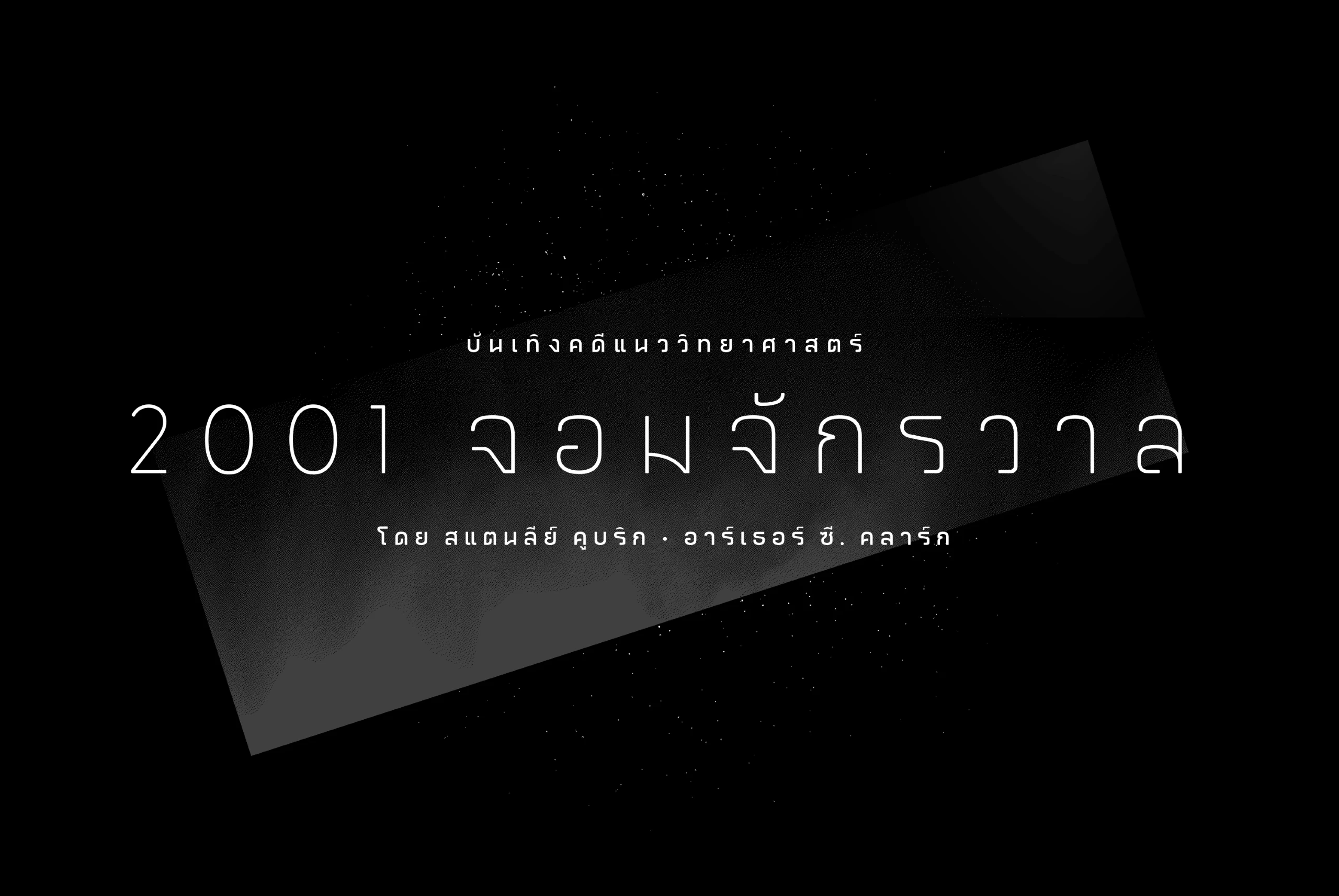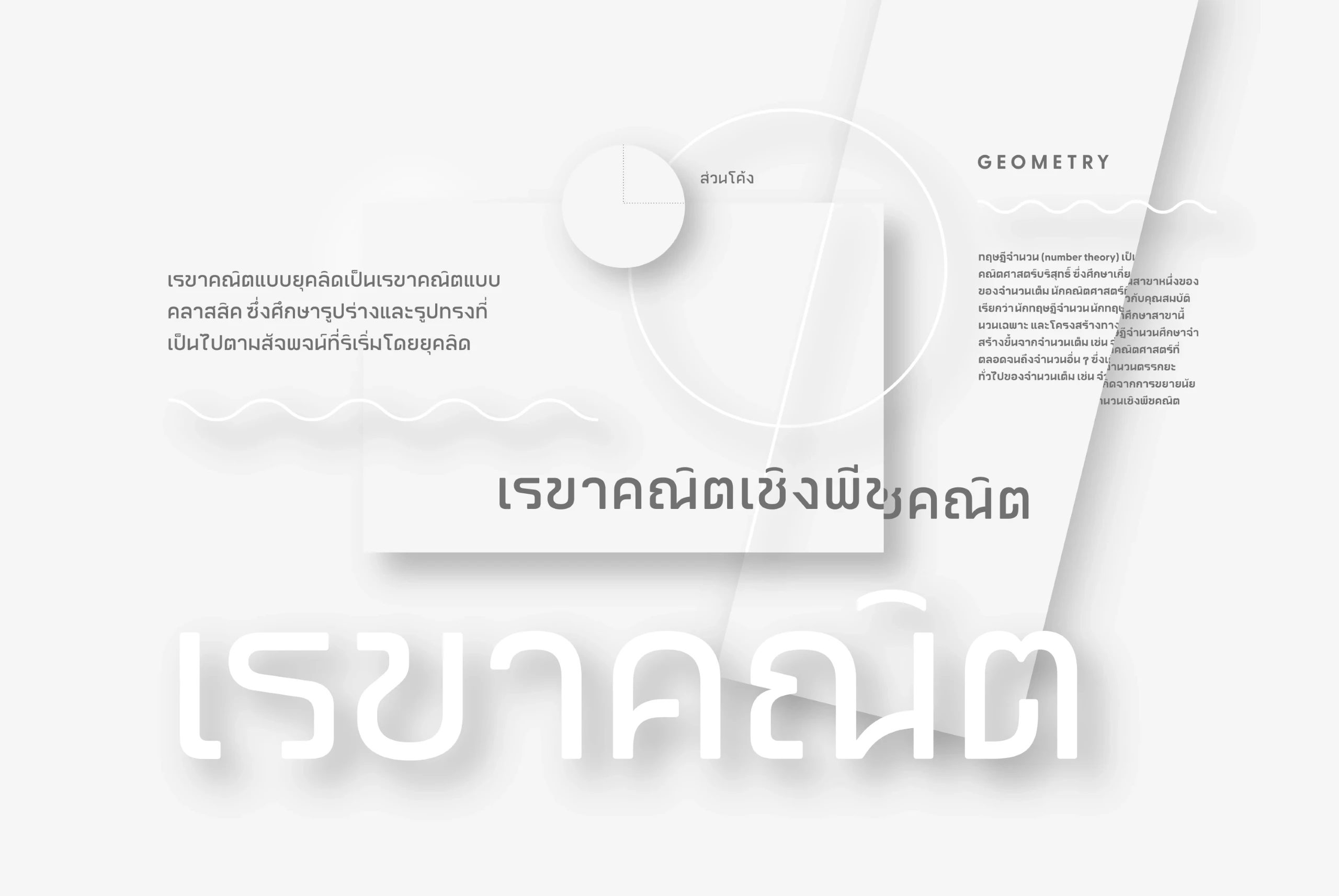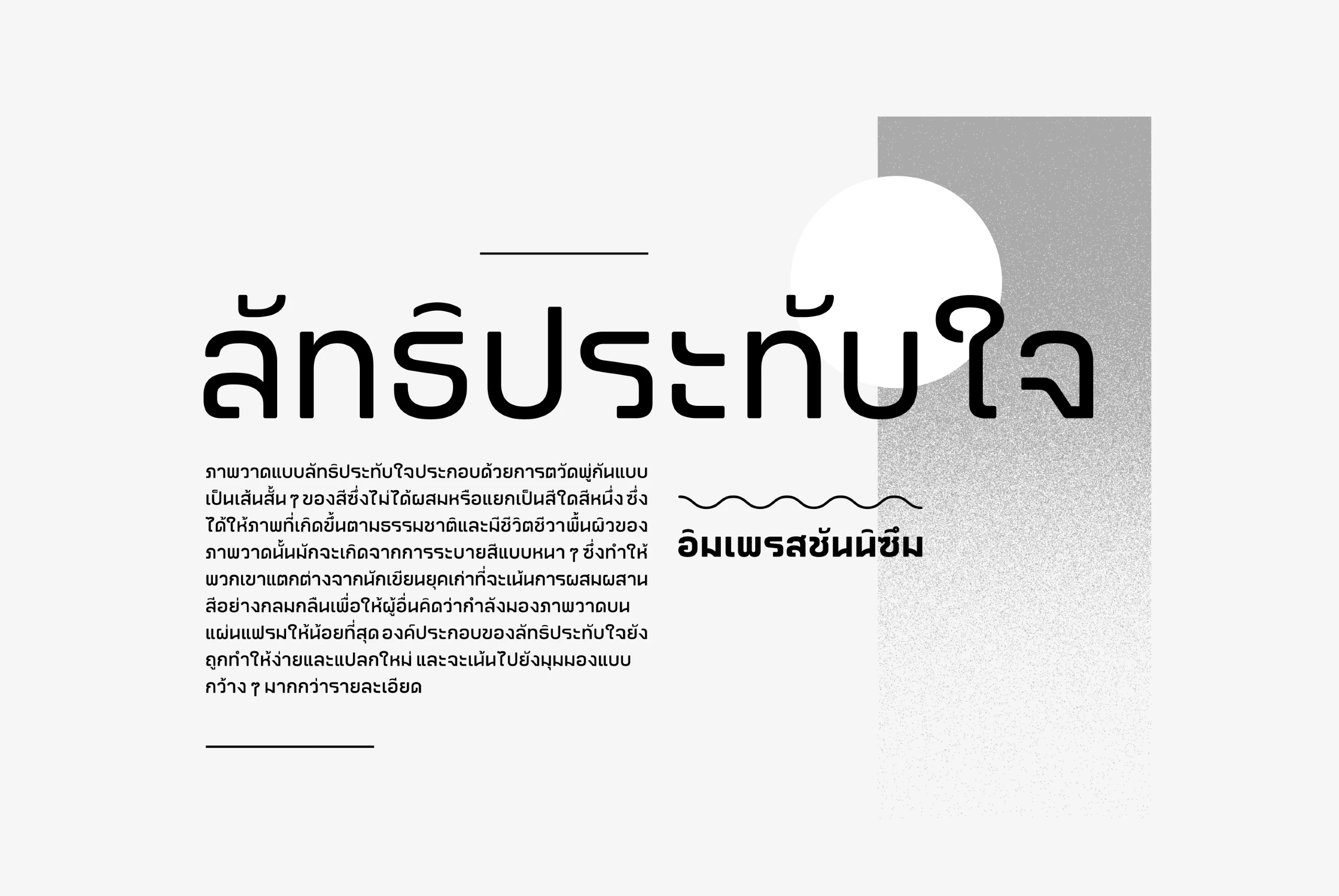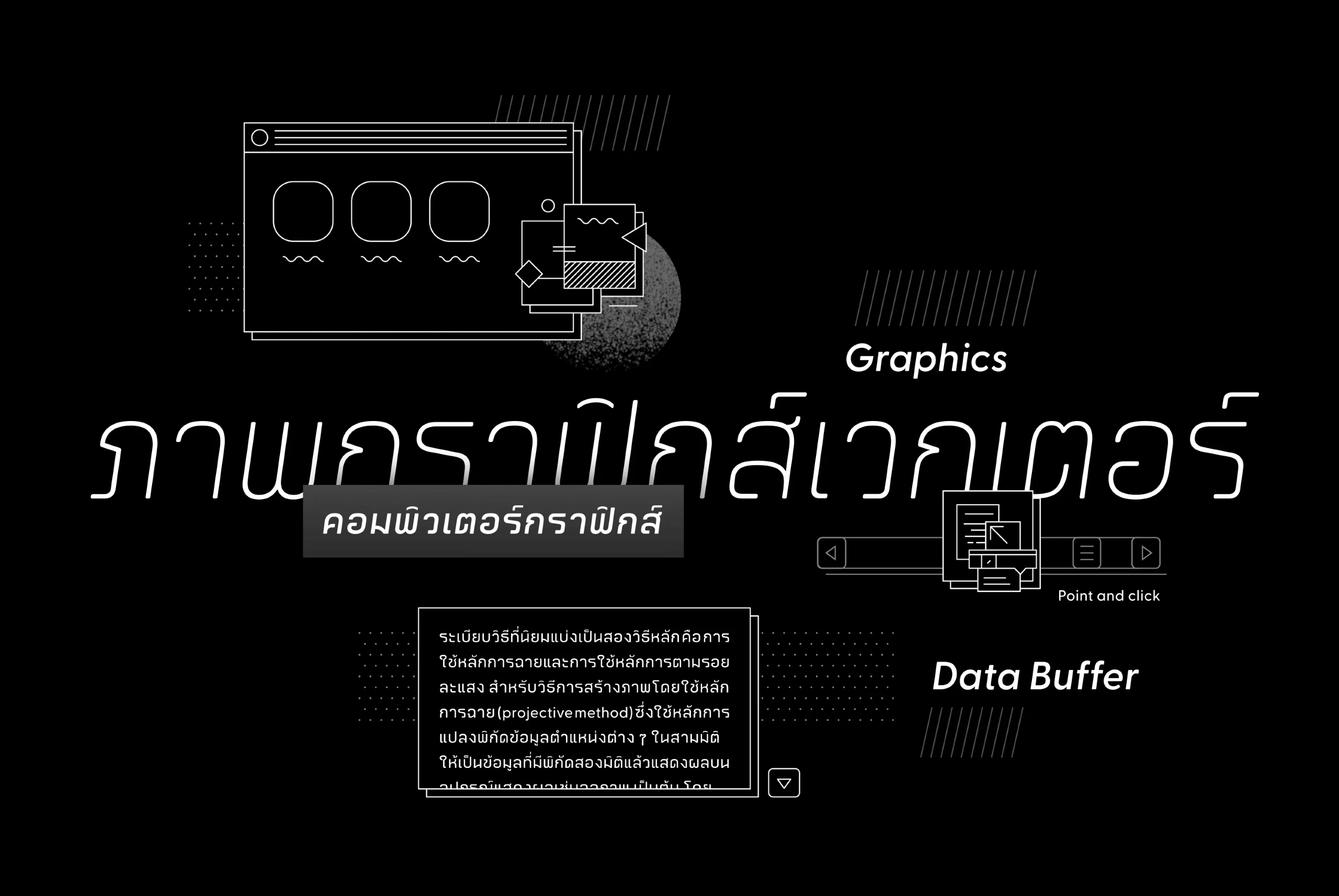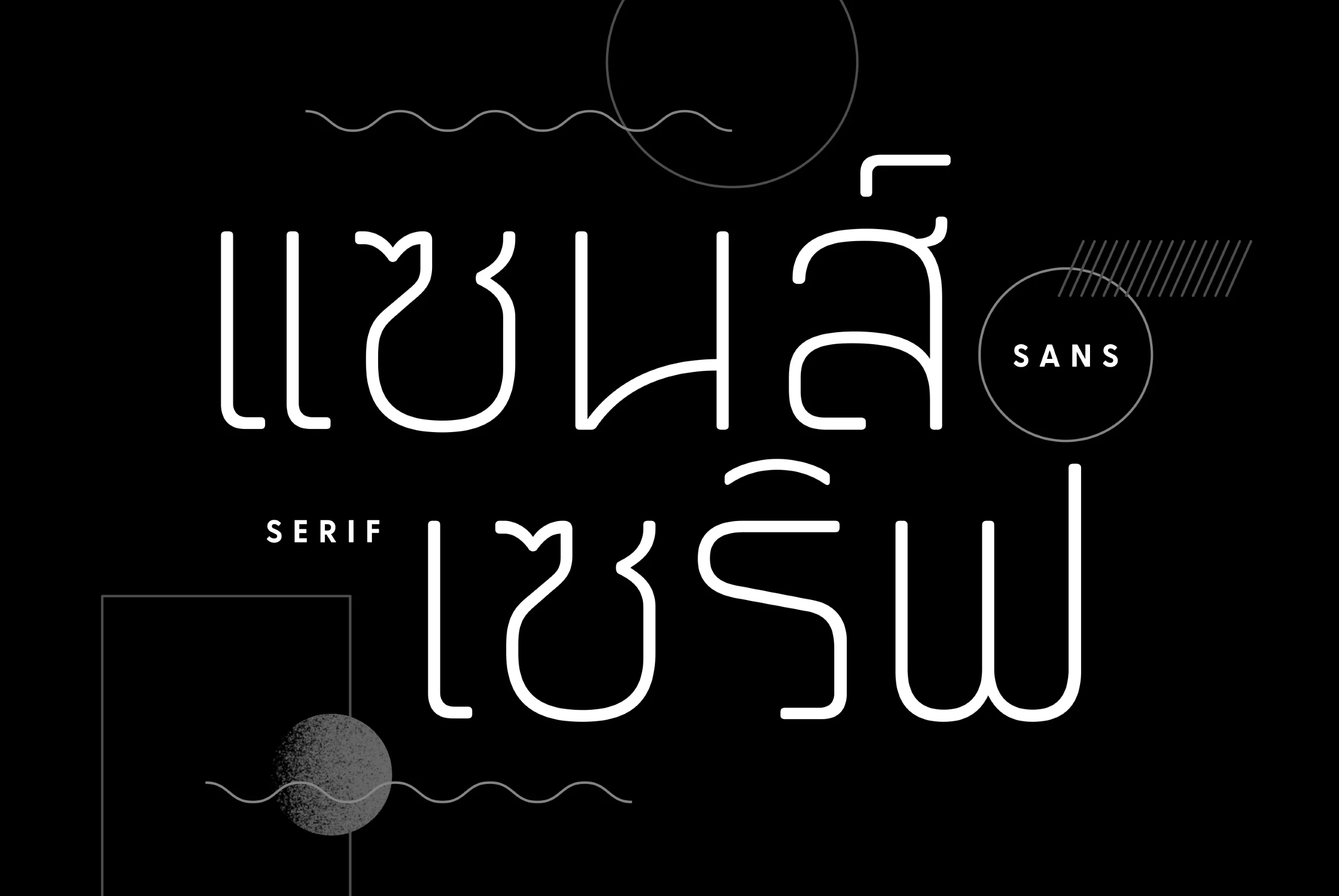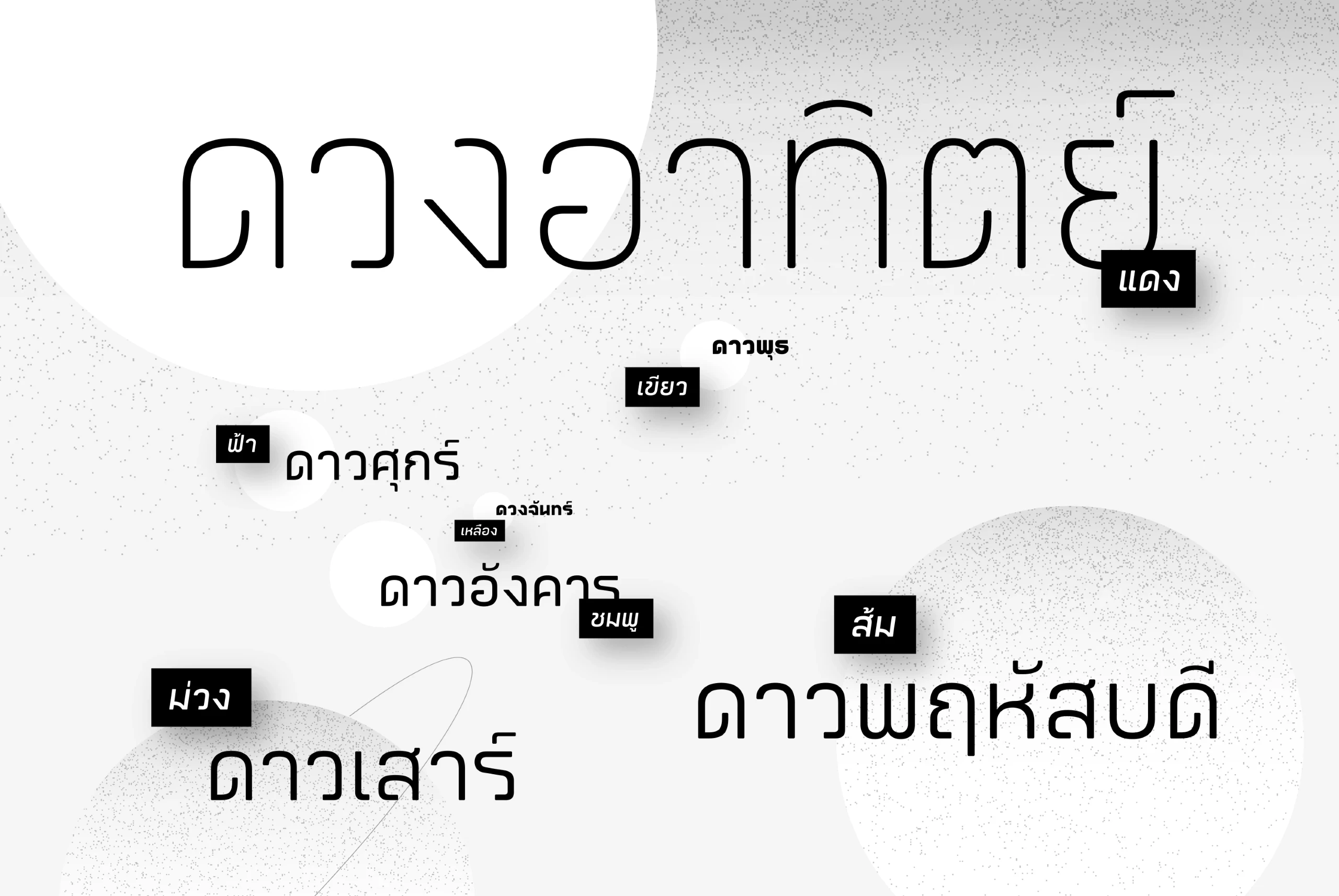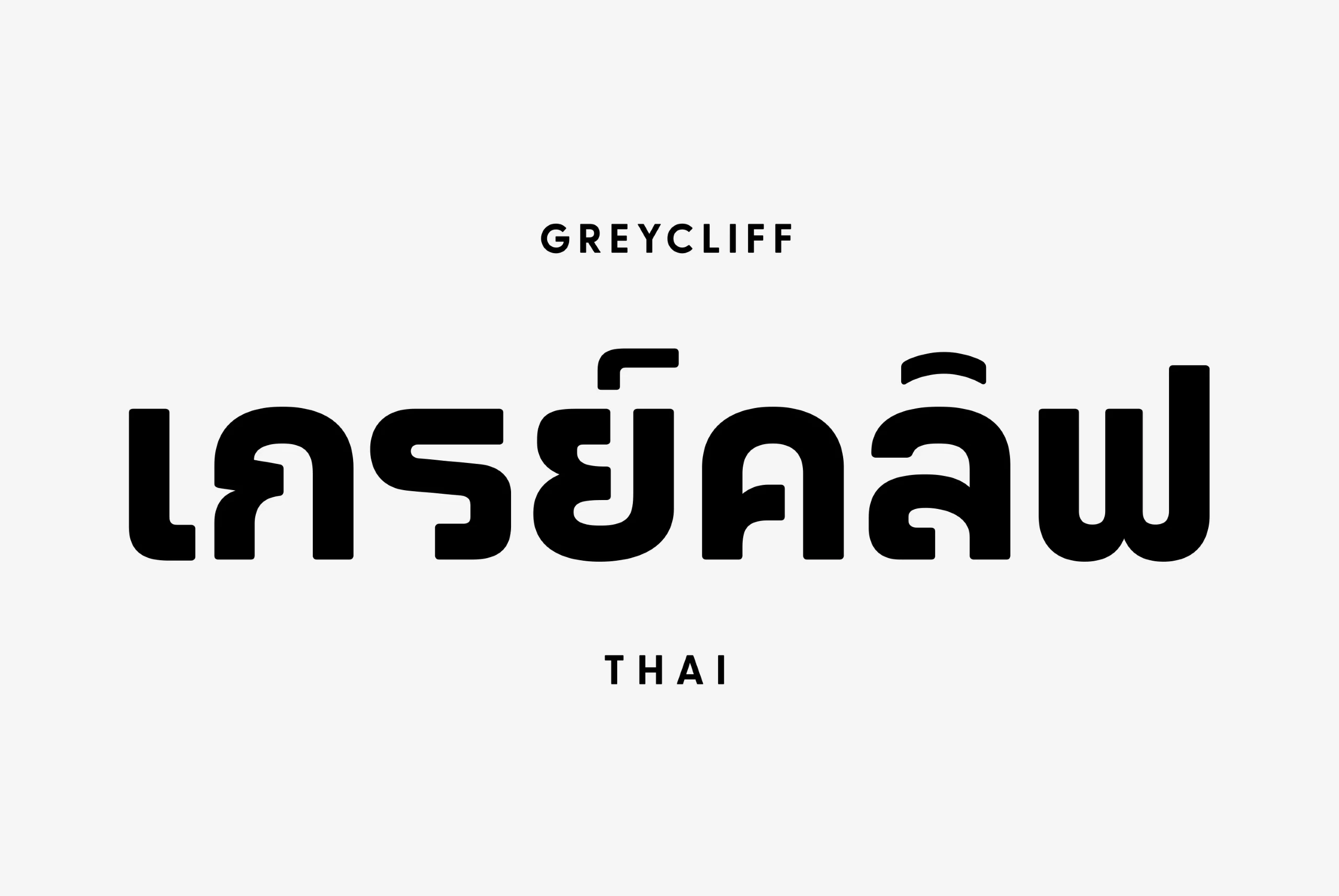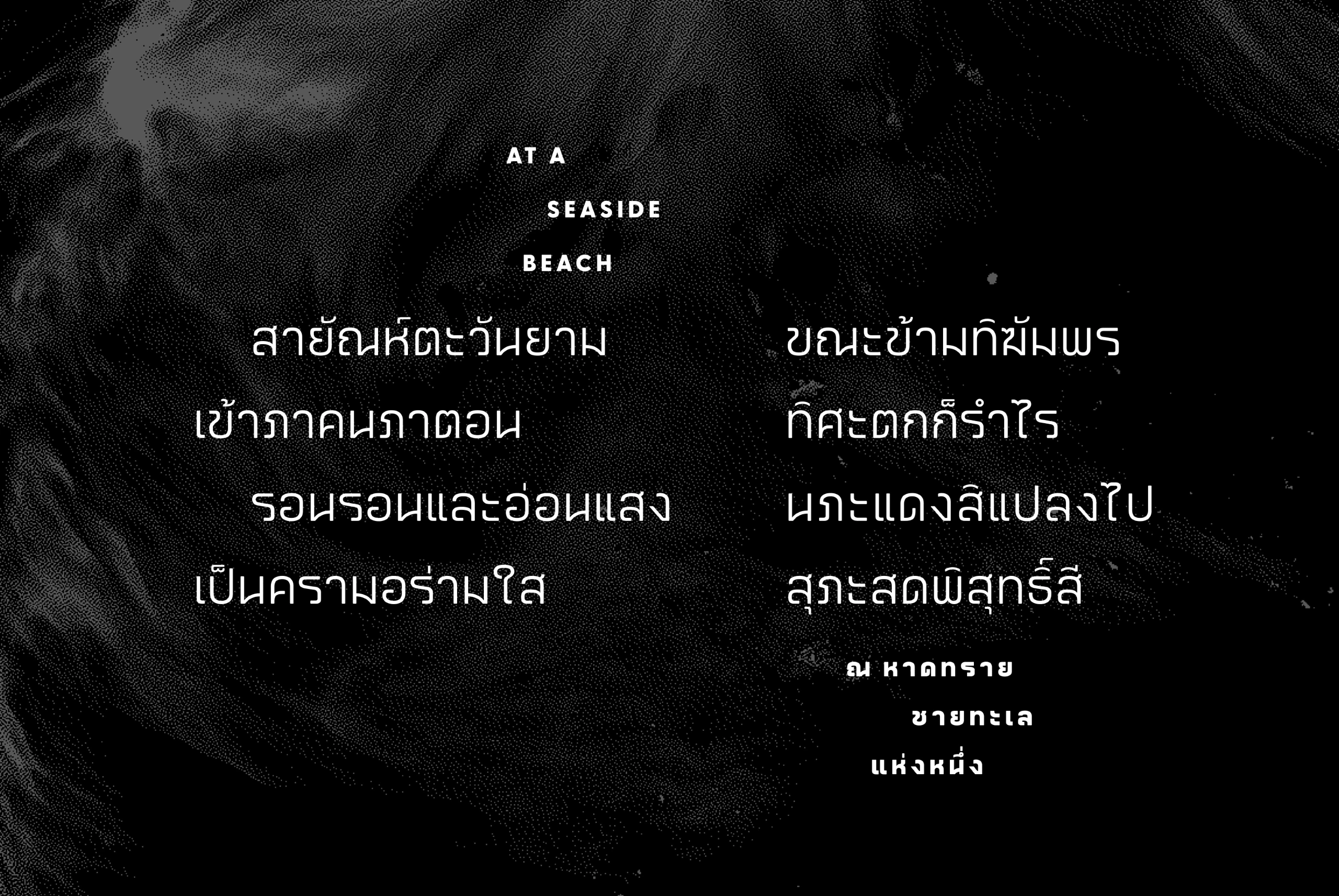
Greycliff Thai
Greycliff Thai Font Family
Greycliff Thai CF adapts Greycliff’s popular soft, geometric design to the Thai script. Both Latin and Thai glyphs are included, allowing for cohesive multiple-script applications. Greycliff Thai CF includes nine weights, obliques, and full Thai diacritics. Greycliff Thai CF works as a complete, self-contained type system, with both Latin and Thai scripts included and designed to compliment one another.
nine Weights in Latin & Thai Script
Greycliff Thai font by Connary Fagen Fonts — the numbers 2001 and Thai script in a light sans-serif, with smaller Thai script above and below, on a dark background with a diagonal gray band and scattered white dots.Greycliff Thai font by Connary Fagen Fonts — the word “GEOMETRY” in upright sans-serif Latin letters, and Thai text in upright sans-serif letters, with a circular motif and wavy lines.Greycliff Thai font by Connary Fagen Fonts — Thai script words in a sans-serif typeface, with a wavy line and the Latin word “IMPRESSIONISM” below, all on a background with a large white circle and a textured gray rectangle.Greycliff Thai font by Connary Fagen Fonts — the words “Graphics”, “Point and click”, and “Data Buffer” in upright sans serif, with Thai script above a gray box reading “คอมพิวเตอร์กราฟิกส์”, and line art icons of a web browser, geometric shapes, and a file folder.Greycliff Thai font by Connary Fagen Fonts — the Thai words for “sans” and “serif” in a geometric sans serif, with the Latin words “SANS” and “SERIF” also presentGreycliff Thai font by Connary Fagen Fonts — Thai script words in various weights and sizes, with small colored labels next to some words.Greycliff Thai font by Connary Fagen Fonts — the word GREYCLIFF in upright sans-serif letters above a large Thai word, which is above the word THAI in upright sans-serif lettersGreycliff Thai font by Connary Fagen Fonts — the words “AT A SEASIDE BEACH” in upright sans-serif Latin letters and several lines of upright sans-serif Thai script.
Required Ligatures
Contextual Alternates
Stylistic Set 1
Stylistic Set 2
Stylistic Set 3
Fractions
Tabular Figures